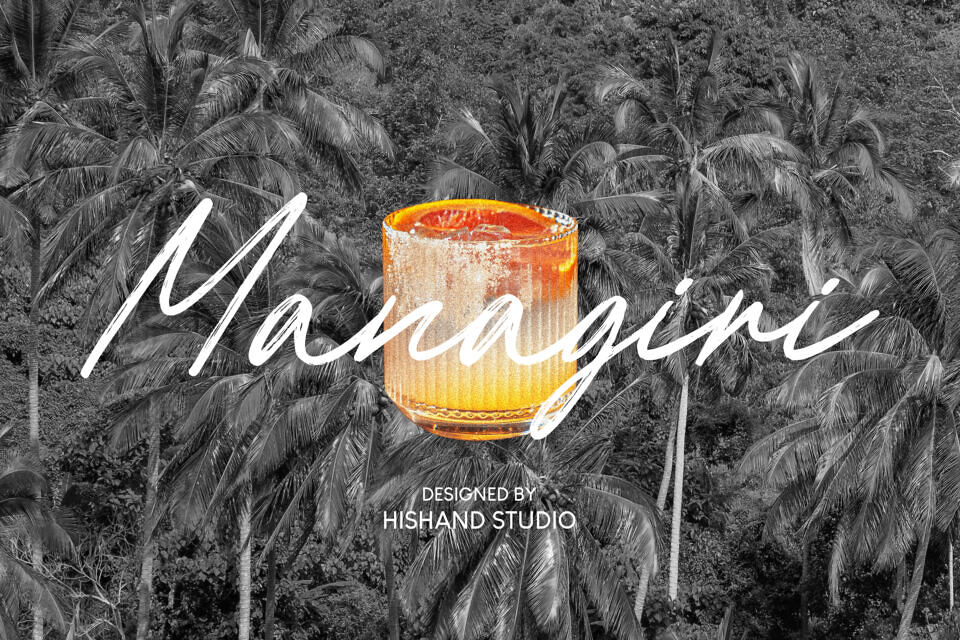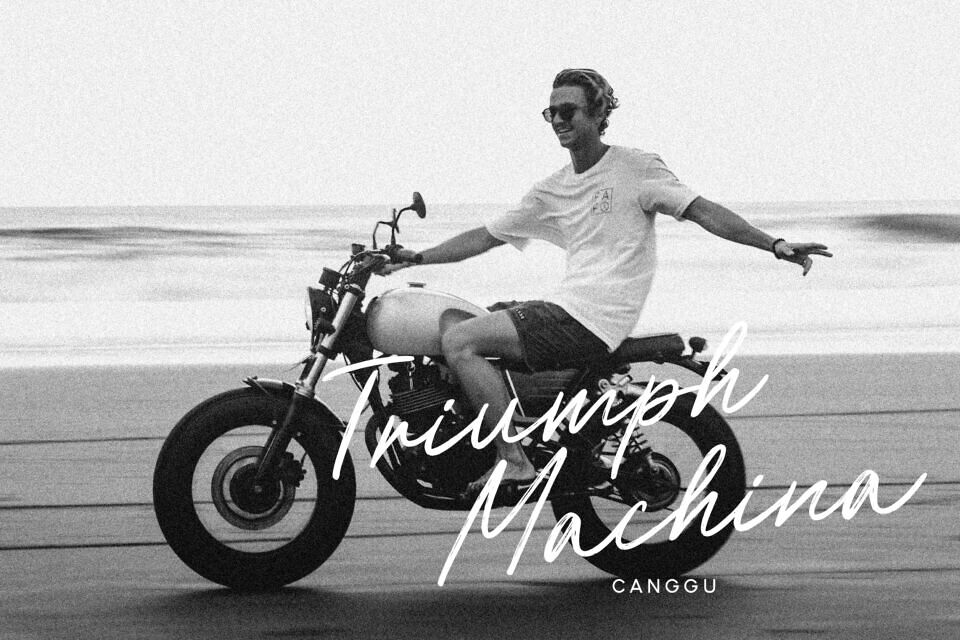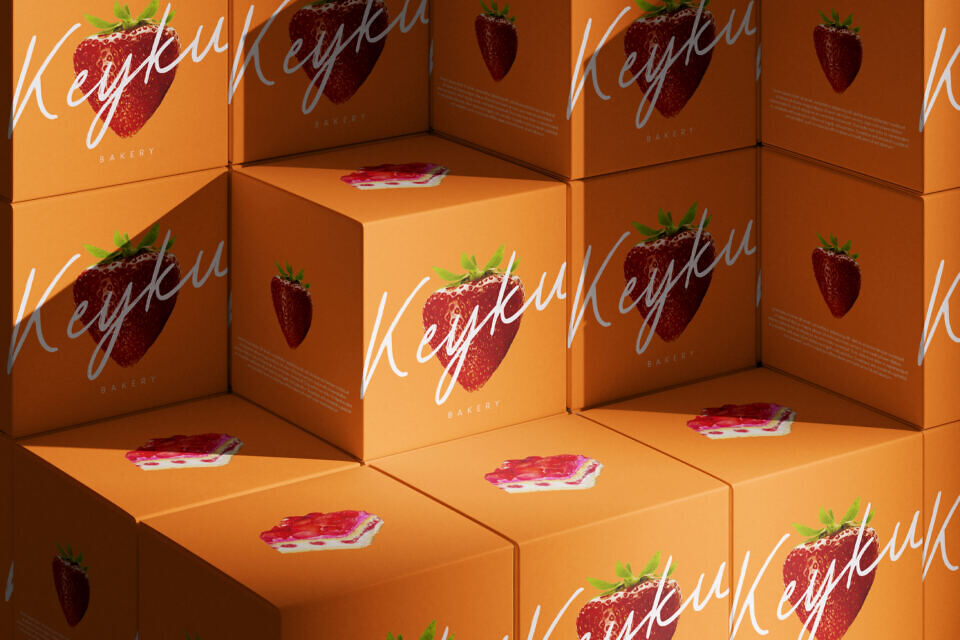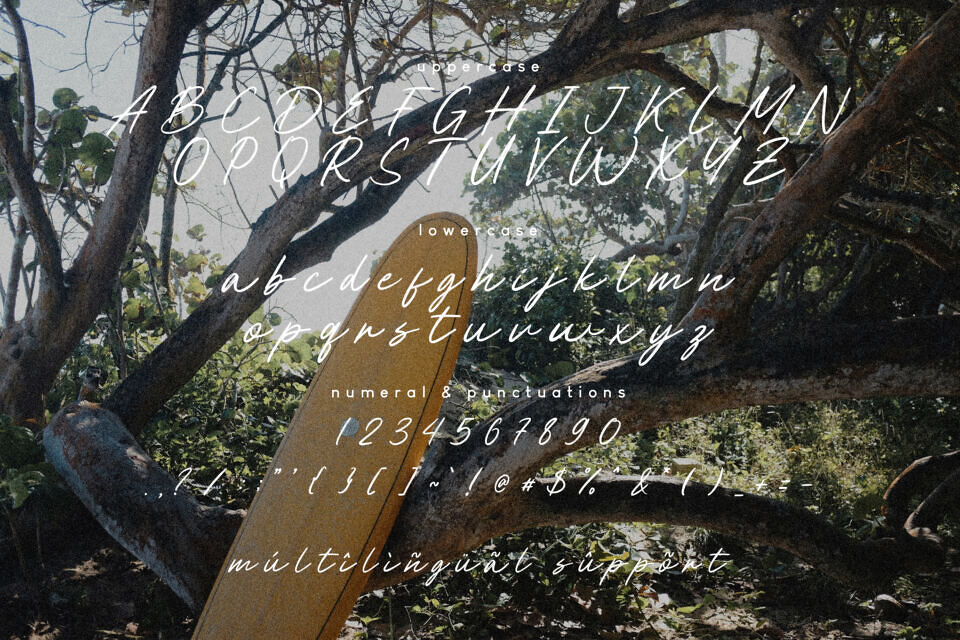
Managiri Font
Managiri Aesthetic Brush Font is a script brush font that captures the spirit of tropical elegance with a relaxed, artistic touch. Designed with flowing strokes and natural brush textures, Managiri brings a sense of warmth, movement, and handcrafted beauty to any design. Each letter is carefully shaped to reflect the rhythm of hand-painted brushwork, creating a style that feels spontaneous yet thoughtfully balanced.
Managiri works beautifully for branding, logos, packaging, social media graphics, posters, and creative headlines. Its tropical aesthetic brings warmth and personality to designs, helping projects feel more inviting and memorable. Whether used for lifestyle brands, beach-inspired visuals, or creative editorial layouts, the font naturally communicates a relaxed yet refined mood.